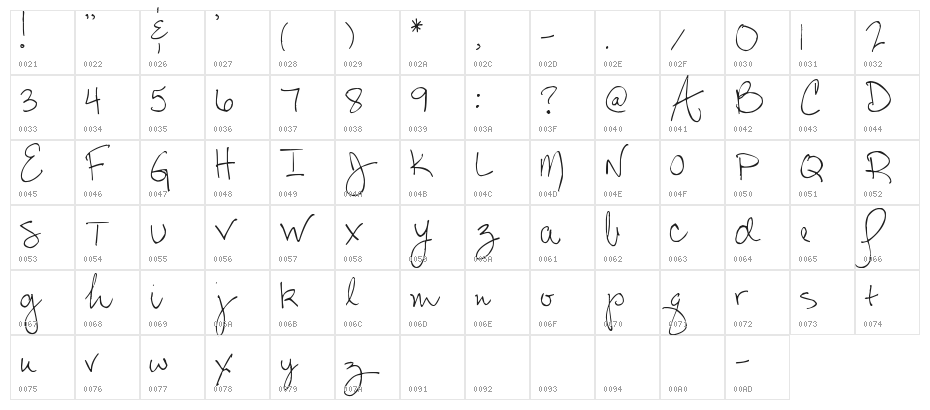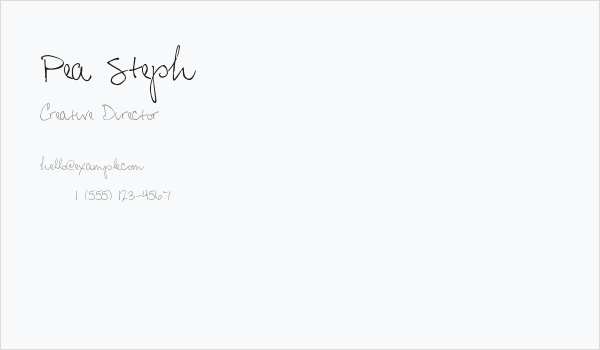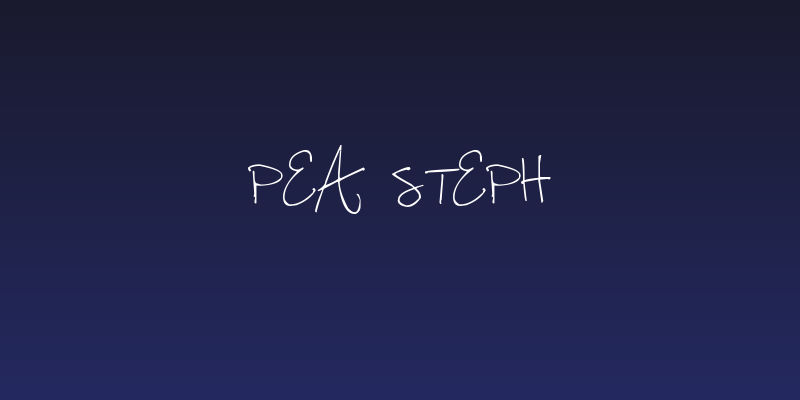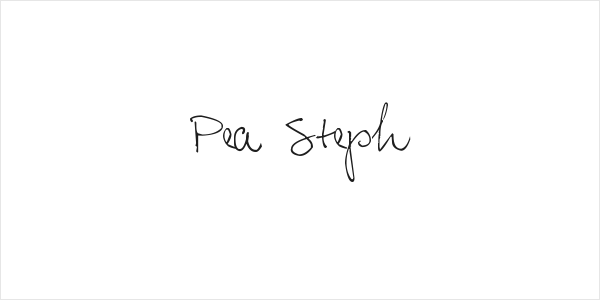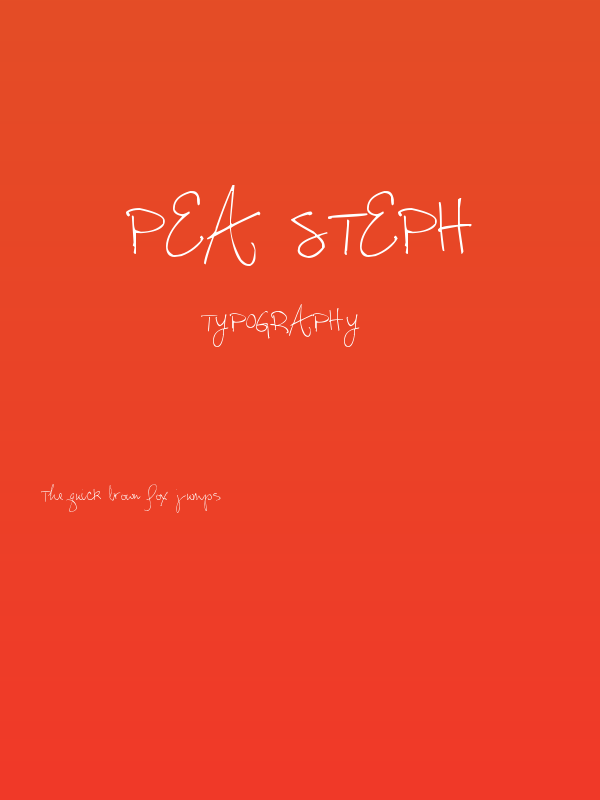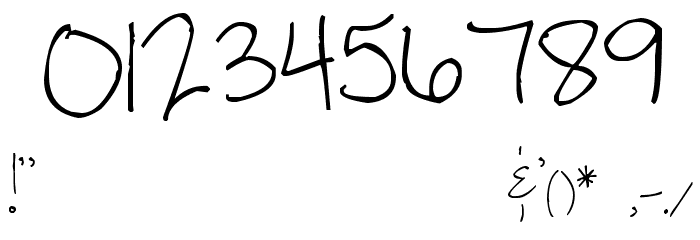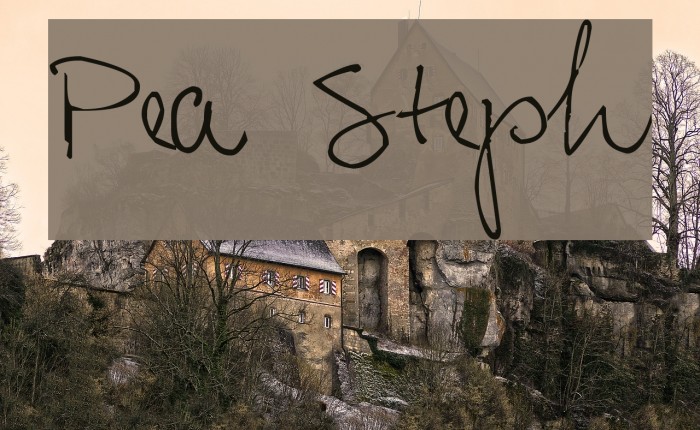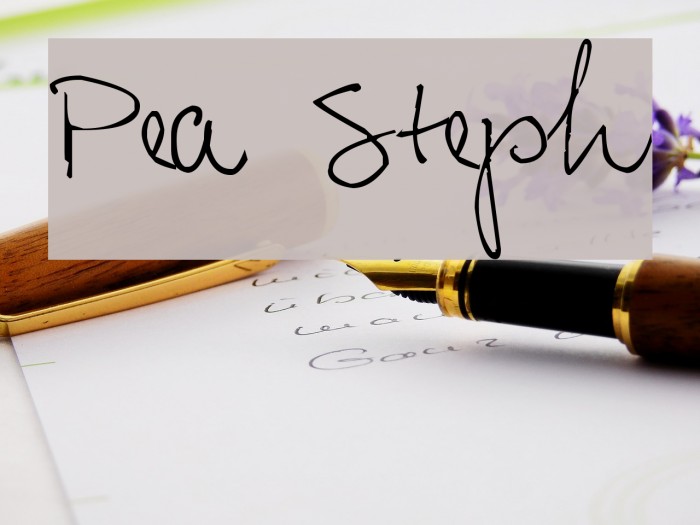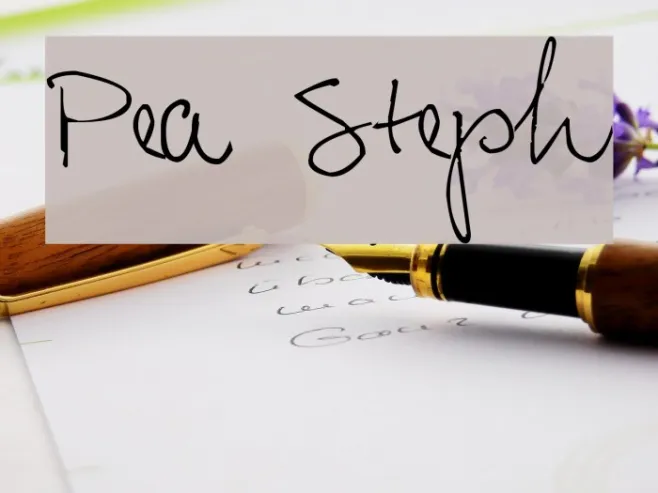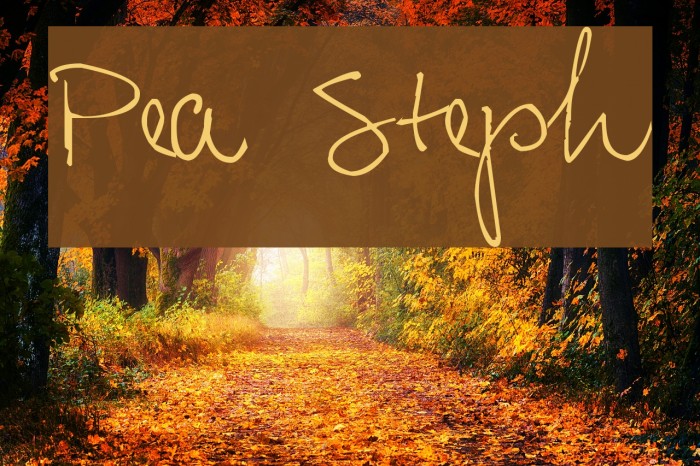
Pea Steph Font
Pea Steph Description
This font exudes a casual and personal touch, reminiscent of handwritten notes with a playful flair. The letters are free-flowing and slightly irregular, giving it an authentic, human feel. Uppercase letters are bold and distinct, while lowercase letters maintain a fluid connection, enhancing the script-like appearance. Numbers and special characters follow the same informal style, ensuring consistency across all elements. The strokes vary in thickness, adding a dynamic quality to the text. This font is perfect for projects that require a personal, approachable, and creative vibe.